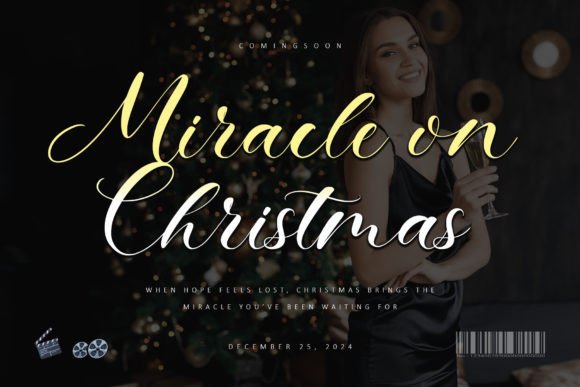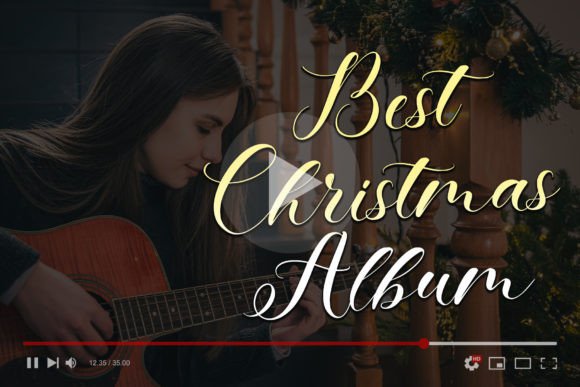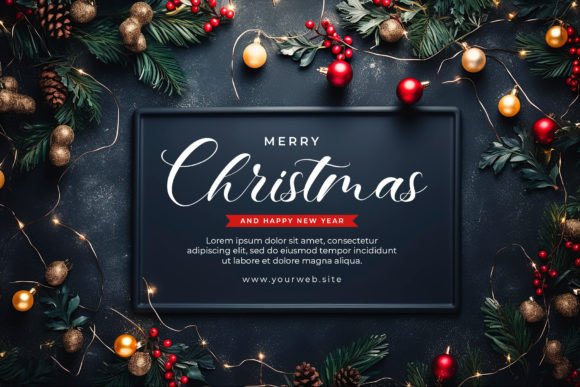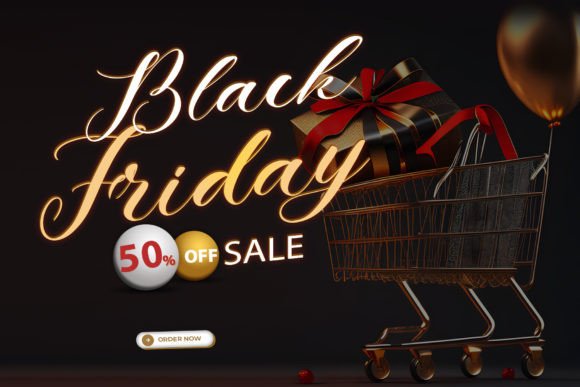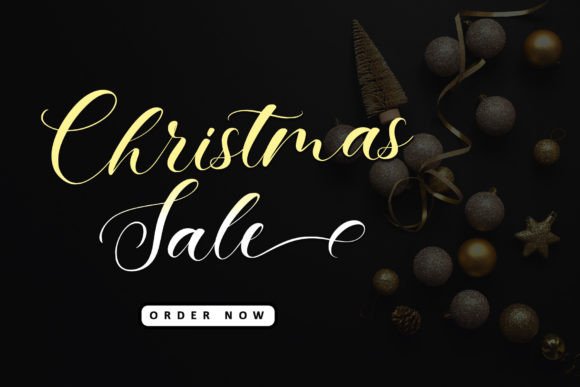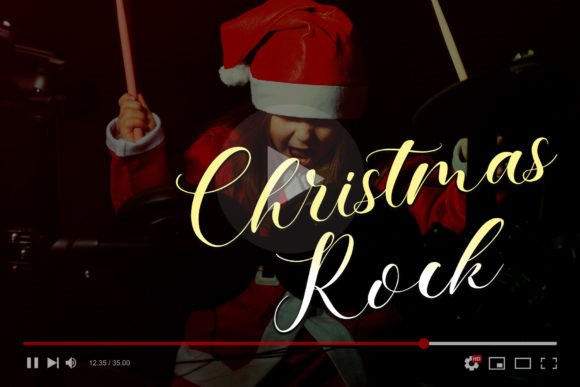
Step into the Magic of the Season with Christmas Twinkle Font
As the holiday season approaches, designers and crafters are on the lookout for the perfect typography to capture the essence of Christmas. Look no further than Christmas Twinkle, a charming handwritten font that sparkles with festive joy and creativity. This delightful font is designed to bring a touch of magic to your holiday designs, making it perfect for greeting cards, invitations, seasonal branding, and more.
Capturing the Warmth and Wonder of the Holidays
Christmas Twinkle perfectly captures the warmth and wonder of the holiday season. Its smooth, flowing strokes and playful charm evoke the feeling of snowflakes gently falling on a winter’s night, while its elegant and refined appearance makes it suitable for even the most sophisticated designs. Whether you’re creating a festive holiday card or a seasonal brand identity, Christmas Twinkle adds a whimsical yet elegant touch that is sure to delight.
A Hand-Crafted Feel for Your Designs
One of the standout features of Christmas Twinkle is its hand-crafted feel. This font is designed to look as though it was written with a brush or a pen, giving it a unique and personal touch. The irregularities and imperfections in the lettering make it feel more organic and human, adding a level of warmth and personality to your designs. This makes Christmas Twinkle perfect for designers and crafters who want to add a personal touch to their work.
PUA Encoding for Limitless Possibilities
Christmas Twinkle comes with PUA (Private Use Area) encoding, which ensures easy access to a wide array of decorative glyphs. This means that you can easily insert festive symbols, such as snowflakes, stars, and bells, into your designs, making them truly shine. The PUA encoding also allows you to access a range of alternative characters and ligatures, giving you even more creative freedom.
Perfect for a Range of Holiday Designs
Christmas Twinkle is a versatile font that can be used for a wide range of holiday designs. Here are just a few ideas to get you started:
- Greeting Cards: Add a personal touch to your holiday cards with Christmas Twinkle. The font’s elegant and refined appearance makes it perfect for formal and informal cards alike.
- Invitations: Create festive and fun invitations for your holiday parties and events. Christmas Twinkle’s playful charm is sure to get your guests in the mood for celebration.
- Seasonal Branding: Use Christmas Twinkle to create a cohesive brand identity for your holiday promotions. The font’s unique and memorable appearance will help your brand stand out.
- Social Media Graphics: Add a touch of festive magic to your social media graphics with Christmas Twinkle. The font’s smooth and flowing strokes look great on digital devices.
Tips for Using Christmas Twinkle
Here are a few tips for getting the most out of Christmas Twinkle:
- Experiment with Colors: Christmas Twinkle looks great in a range of colors, from traditional red and green to more modern shades like metallic silver and gold.
- Mix and Match: Combine Christmas Twinkle with other fonts to create a unique and eye-catching design.
- Don’t be Afraid to Get Creative: The PUA encoding and range of decorative glyphs make it easy to get creative with Christmas Twinkle. Don’t be afraid to try out new and unusual design ideas.